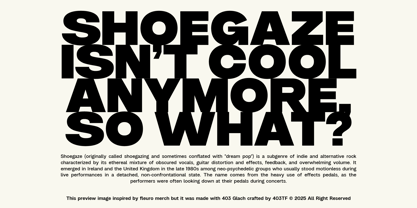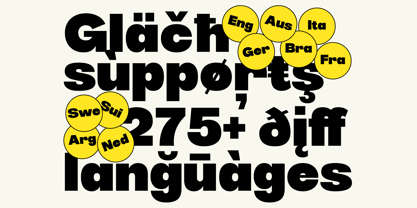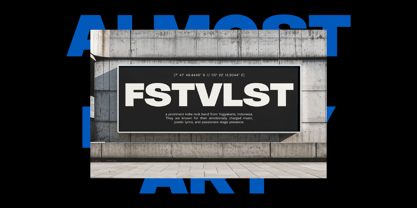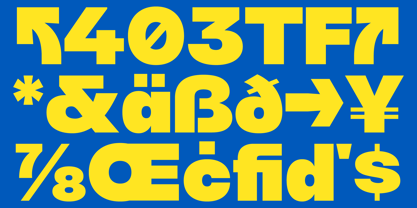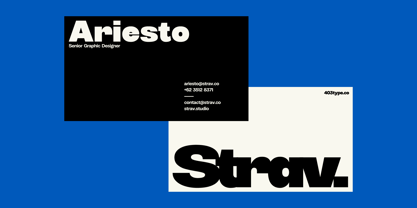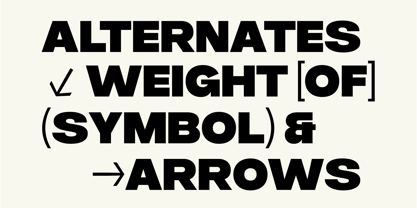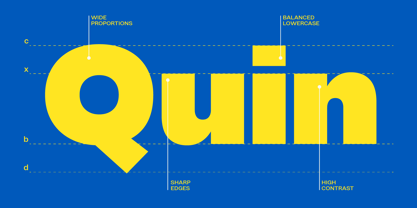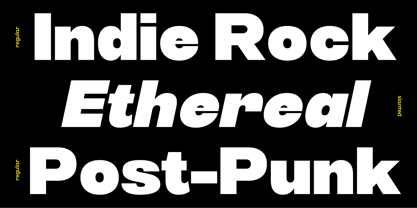
403 Glach
by 403TF
The 403 Glach Font Family was designed by Umar Al Farouq, Jodi El Ghazi, Febri Riansah and published by 403TF. 403 Glach contains 2 styles and family package options.
403 Glach is a bold, self-assured sans-serif font with a contemporary, geometric shape that is intended to create a powerful visual impression. This typeface, which comes in two adaptable styles—Regular and Slant—is ideal for a variety of design purposes, such as digital interfaces, branding, editorial design, and posters. For projects that require a sense of motion or urgency, the Slant style adds a dynamic, forward-moving energy, while the Regular style provides a clean and sturdy appearance. With its large glyph set that supports numerous languages and special characters, 403 Glach ensures adaptability to a wide range of design requirements. It is a dependable option for both display and text applications because of its crisp edges, well-balanced proportions, and excellent legibility. With expert accuracy, 403 Glach creates a strong typographic presence whether you're creating striking headlines or striking visual identities.
Designers: Umar Al Farouq, Jodi El Ghazi, Febri Riansah
Publisher: 403TF
Foundry: 403TF